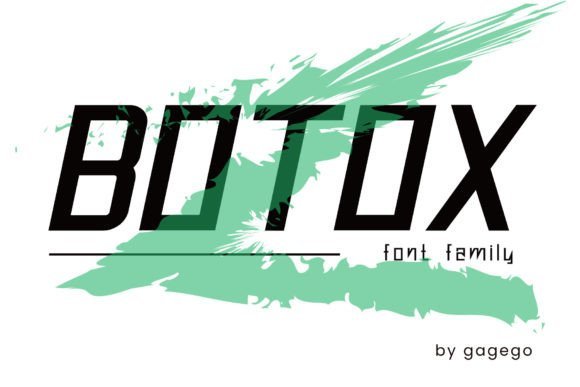
Unleashing the Power of Botox Font
Have you ever stared at a beautifully designed logo or website and wondered what makes it so captivating? Perhaps it’s the perfect balance of style and sophistication, or the way the text seems to dance across the screen. As designers, we’re constantly on the lookout for that elusive magic formula to elevate our work to the next level.
Enter the Botox Font, a sleek and modern sans-serif font that’s poised to take the design world by storm. With its clean lines and geometric shapes, this font is perfect for branding, editorial design, and digital applications. Its bold yet elegant presence will leave a lasting impression on any project.
Botox Font Key Features
- Font Family: Botox Font is a sans-serif font family, designed for digital use.
- Unique Characteristics: Botox Font features a unique, modern design with clean lines and geometric shapes, making it suitable for digital and print applications.
Botox Font Review
As a designer, I was excited to try out the “Botox Font” and see if it lived up to its promises. Here’s my honest review.
- Unique style: Botox Font has a distinctive, futuristic look that can add a touch of edginess to any design project.
- Wide range of weights: The font comes in a variety of weights, from light to bold, making it suitable for a range of design applications.
- Great for headlines: The font’s bold lines and geometric shapes make it perfect for use in headlines and titles.
- Lack of readability: At small font sizes, the Botox Font can become difficult to read due to its complex shapes and lines.
- Not suitable for body text: Due to its bold lines and lack of readability, I wouldn’t recommend using Botox Font for large blocks of body text.
- Not accessible: The font may not be compatible with assistive technologies, making it inaccessible to some users.
Overall, I think Botox Font is a great addition to any designer’s toolkit, but it’s not a font for every project. Use it wisely and in moderation, and you’ll get the most out of its unique style and versatility.
Tips for Getting the Most Out of Botox Font
Here are some tips to help you get the most out of Botox Font:
- Use Botox Font in combination with other design elements to create a unique look.
- Don’t be afraid to try out different font styles to find the one that works best for your project.
Botox Font is commonly used in:
- Graphic design projects.
- Advertising
Alternatives to Botox Font
Optima Font
Optima is a sans-serif font designed by Hermann Eberhard in 1952. It’s a clean and elegant font that’s suitable for body text, headlines, and titles. Optima is a great alternative to Botox Font when you need a more formal and professional look.
Comparison: Optima has a more geometric and precise feel compared to Botox Font’s more rounded and playful design.
Helvetica Now Font
Helvetica Now is a sans-serif font designed by Wolfgang Weingart in 2020. It’s a modern and versatile font that’s suitable for various design applications, from body text to headlines. Helvetica Now is a great alternative to Botox Font when you need a more contemporary and clean design.
Comparison: Helvetica Now has a more modern and streamlined feel compared to Botox Font’s more classic and traditional design.
Avenir Next Font
Avenir Next is a sans-serif font designed by Adrian Frutiger in 1988. It’s a highly legible and versatile font that’s suitable for body text, headlines, and titles. Avenir Next is a great alternative to Botox Font when you need a more sophisticated and elegant design.
Comparison: Avenir Next has a more refined and polished feel compared to Botox Font’s more casual and playful design.